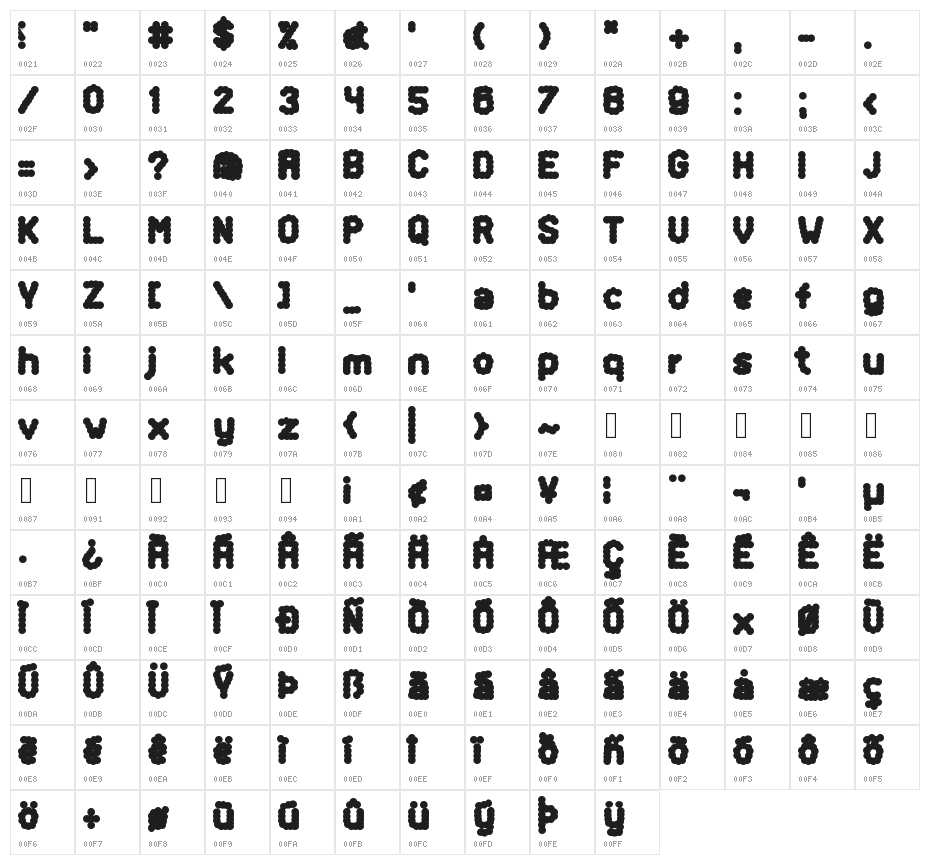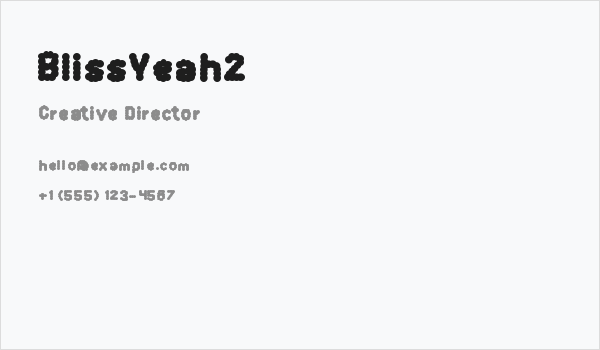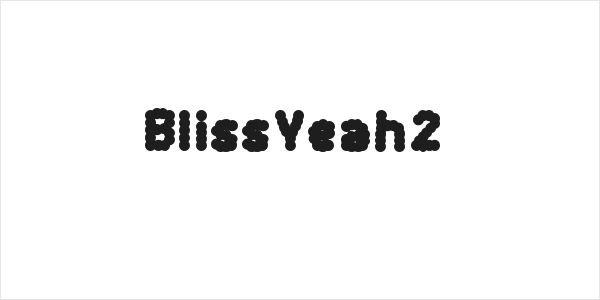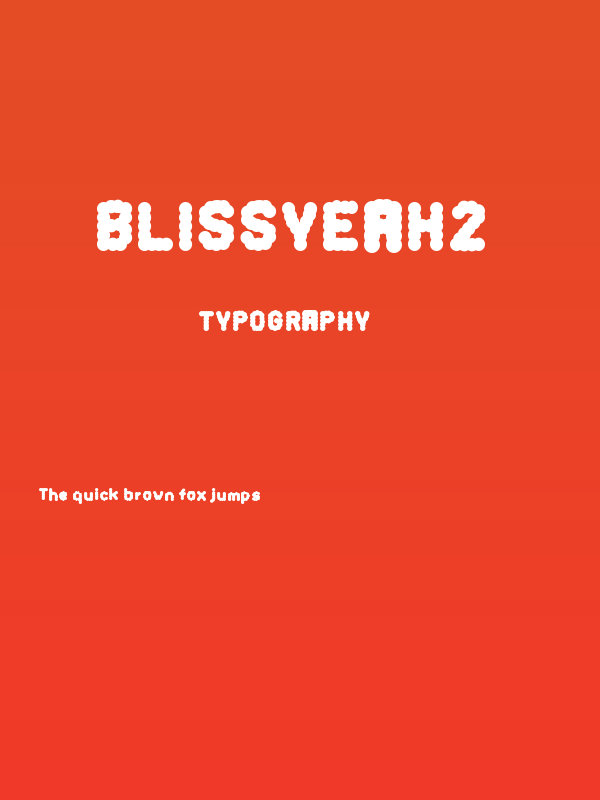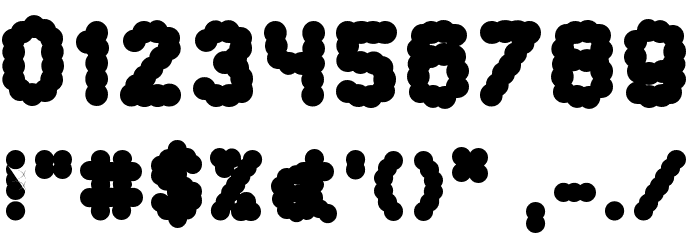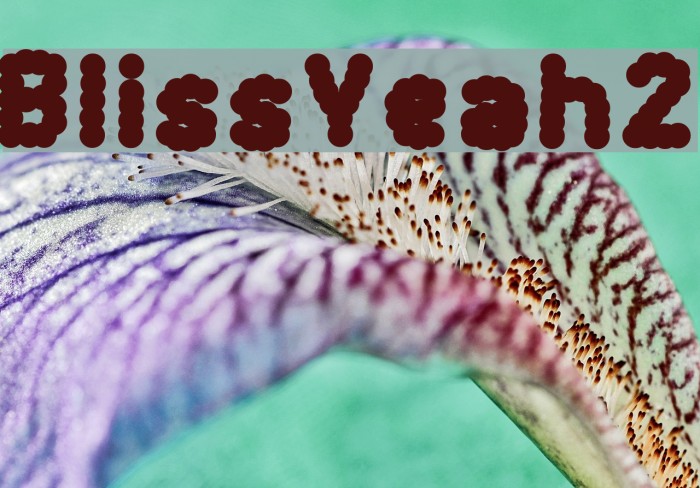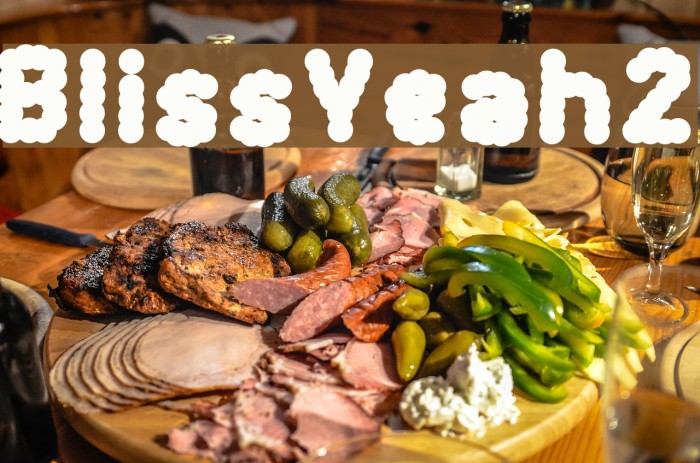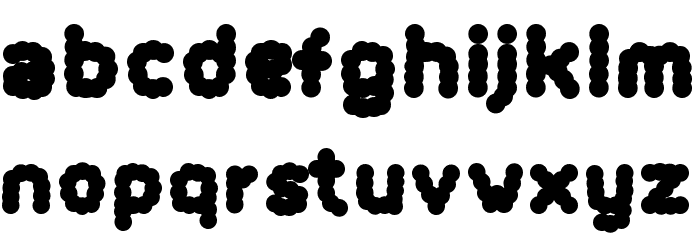
BlissYeah2 Font
BlissYeah2 Description
This font features a playful and bubbly design, with each character formed by a series of rounded, interconnected shapes that create a soft and friendly appearance. The letters are bold and have a consistent thickness throughout, giving them a uniform look. The rounded edges and lack of sharp angles contribute to its approachable and informal style. This font is highly decorative, making it ideal for projects that require a fun and whimsical touch. The characters are evenly spaced, ensuring readability despite their unique design.